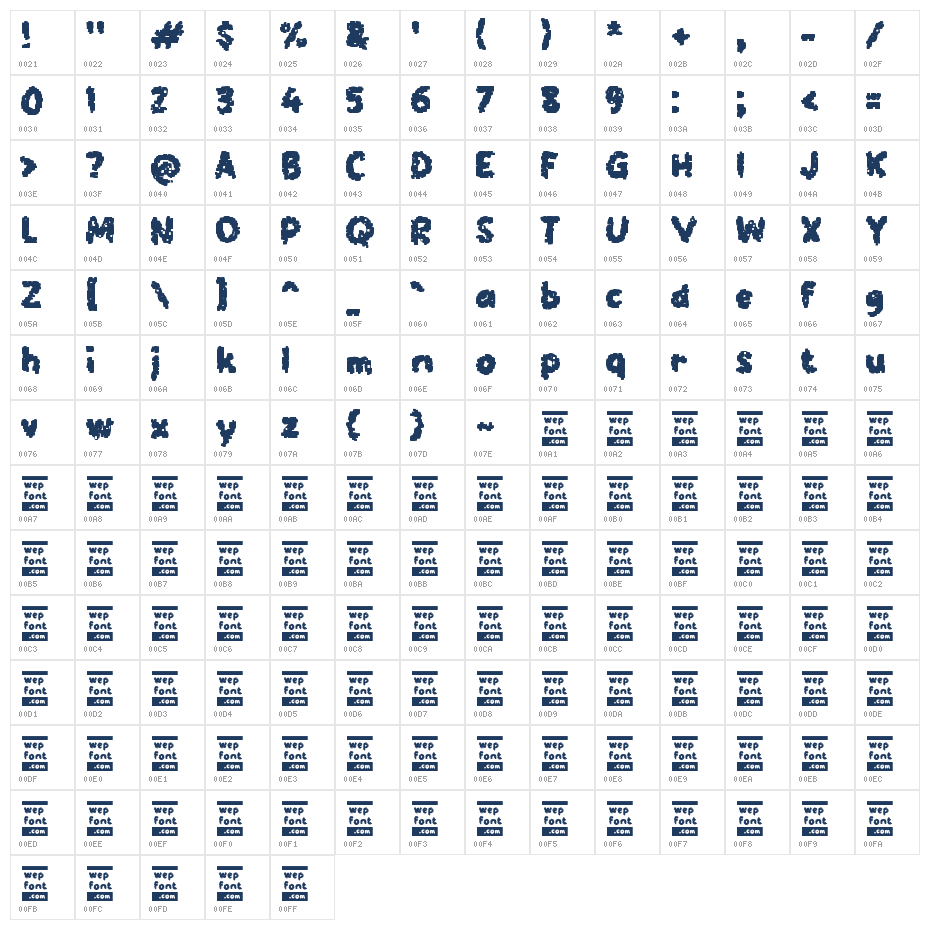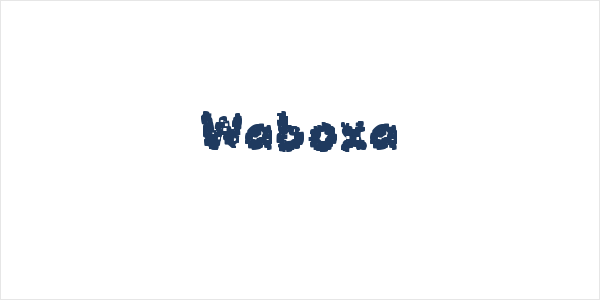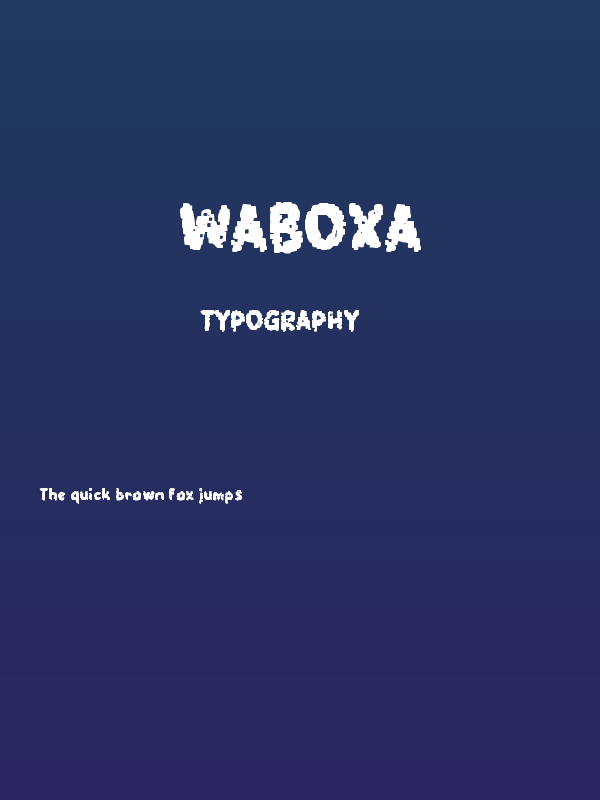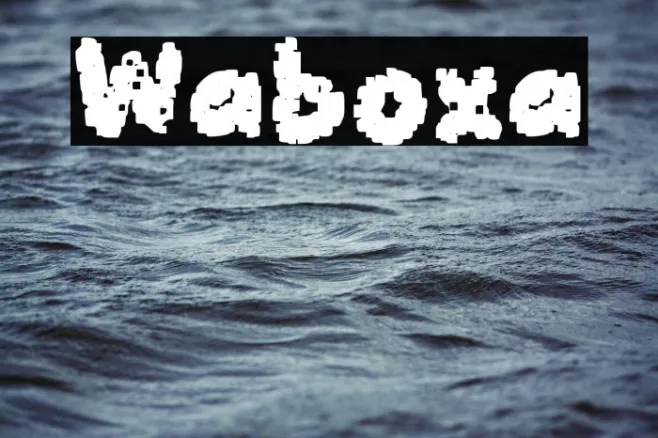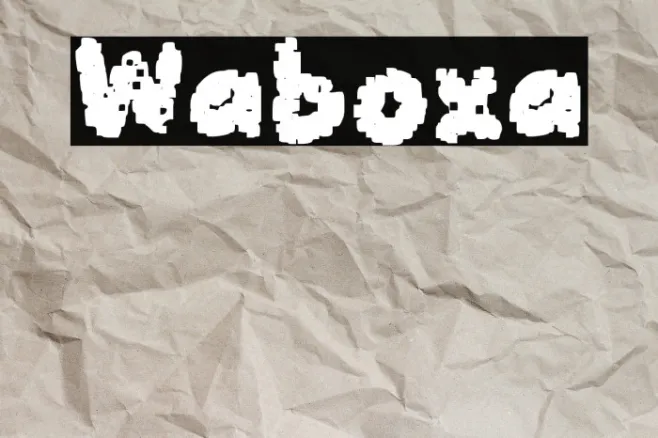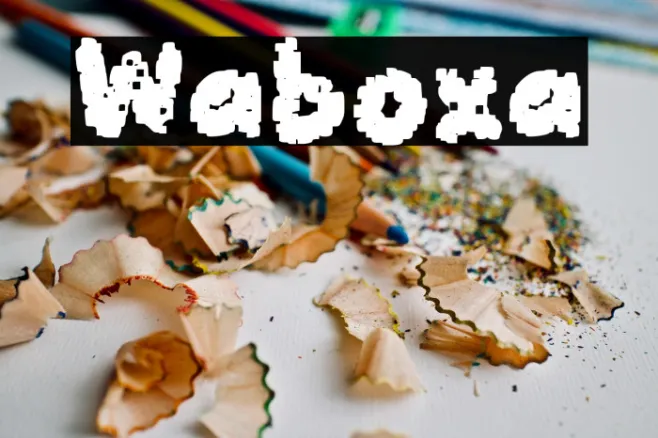
Waboxa Font
Waboxa Description
A distressed, textured font with a rough, uneven appearance, resembling a hand-drawn or stamped style.
| Overall Style | Grunge, Handcrafted, Textured |
| Use Case | Headlines, Posters, Creative branding |